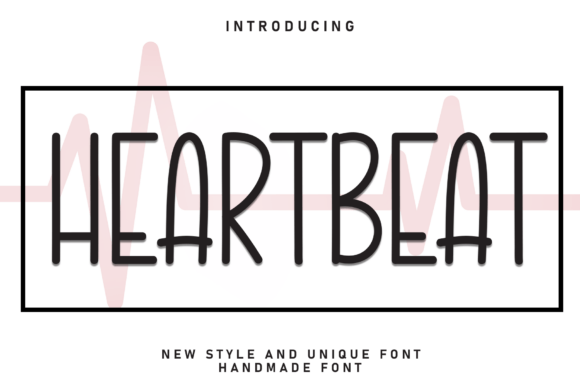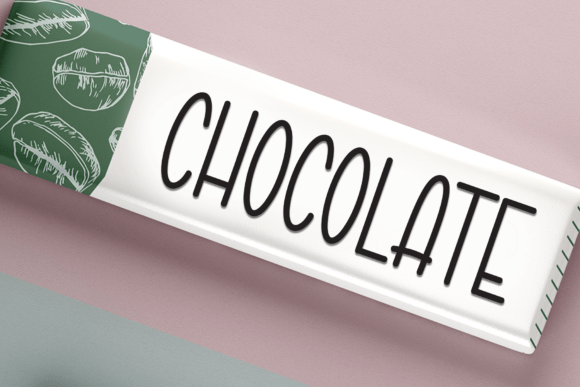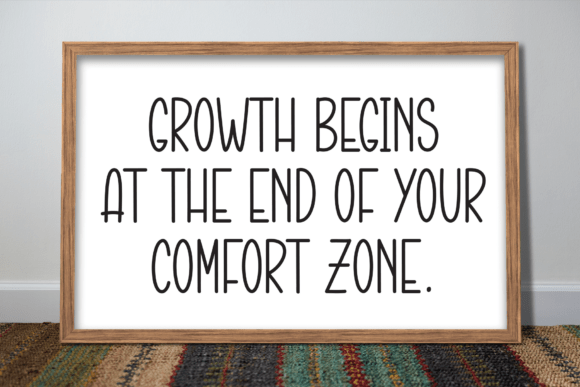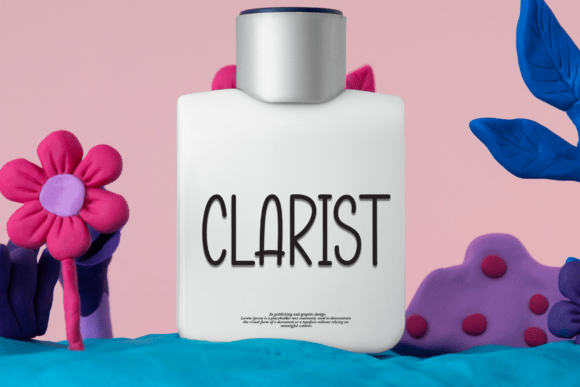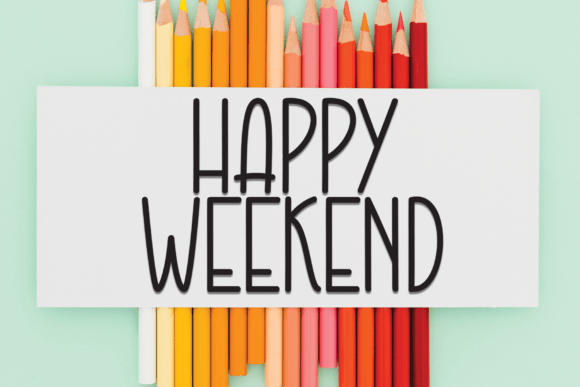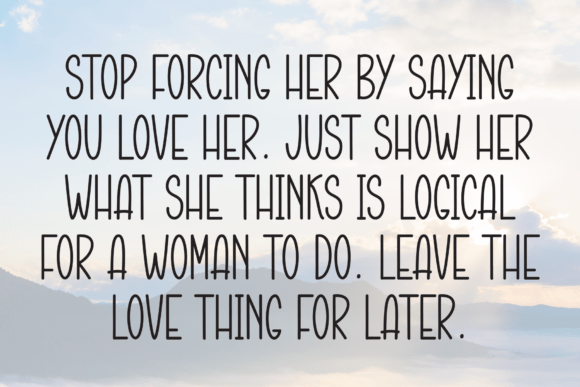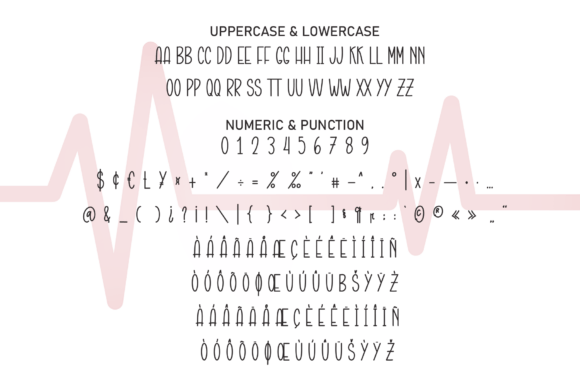
The Perfect Beat: Unlocking the Potential of Heartbeat Font
You know that moment when a font just clicks, and your design starts to come alive? For designers, that ‘aha’ moment is the key to creating something truly special. It’s the spark that ignites a project, and in this case, that spark is the Heartbeat Font.
Heartbeat Font is a stylish and approachable display font that brings a touch of modernity to any design. With its clean lines and friendly letterforms, it’s perfect for headlines, posters, packaging, and branding that wants to feel relaxed yet stylish. By incorporating the Heartbeat Font into your designs, you can add a unique personality without overwhelming the message.
As a designer, having access to versatile fonts like Heartbeat Font is invaluable. It allows you to experiment with different styles and energies, creating a wide range of looks that perfectly capture your brand’s tone and essence. Whether you’re working on a casual project or a high-end campaign, the Heartbeat Font is sure to bring a fresh, modern vibe to your work.
- Font Family: Heartbeat Font is a sans-serif font family designed specifically for digital use.
- Unique Characteristic: Heartbeat Font features a unique, pulsing rhythm in its letterforms, giving it a dynamic and energetic feel.
Heartbeat Font Review
Overall, I was really excited to dive into the Heartbeat Font, but my experience was a bit of a mixed bag. Here are my thoughts:
- The font is highly customizable, allowing for some amazing variations in style and feel.
- The bold weight is particularly striking, making it perfect for headlines and titles.
- The font’s organic, hand-drawn feel is really unique and adds a lot of character to any design.
- The font can be a bit tricky to read at smaller sizes, especially in body text.
- The ligatures can sometimes feel a bit inconsistent, which can be distracting.
- The font doesn’t include a lot of language support, which could be a limitation for international designs.
While the Heartbeat Font has some amazing strengths, it also has some notable weaknesses. If you’re looking for a font that can add a lot of personality to your design, it’s worth considering. However, if you need a font that’s super readable or has extensive language support, you might want to look elsewhere.
Tips for Getting the Most Out of the Heartbeat Font
Use the Heartbeat Font to add a dynamic and energetic feel to your designs.
Pair it with bold colors and graphics for maximum impact.
The Heartbeat Font is perfect for:
Marketing materials, such as posters and flyers.
Event branding and invitations.
Web design and social media graphics.